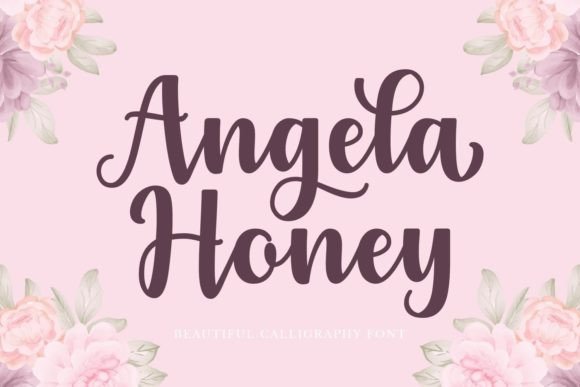
The Sweet Taste of Design Perfection
Have you ever been in the midst of a creative project, struggling to find the perfect font to bring your vision to life? I know I have. It’s that moment when everything seems to be in place, but something is missing – a subtle yet crucial detail that can make all the difference. This is where the magic happens, and I’m thrilled to introduce you to the perfect solution: the Angela Honey Font.
This beautiful, smooth, and slightly playful calligraphy font is designed to elevate your designs and leave a lasting impression. With its PUA encoding, accessing all the glyphs and swashes is a breeze, allowing you to unleash your creativity without any limitations. Whether you’re a seasoned designer or just starting out, the Angela Honey Font is a valuable addition to your toolkit, sure to bring a touch of sophistication and whimsy to your projects.
Key Features of Angela Honey Font
- Font Family: Angela Honey is a script font family designed to resemble handwritten text.
- Unique Characteristics: The font features a fluid, cursive design with subtle connections between letters, giving it a natural and elegant feel.
Review: Angela Honey Font
First impressions count, and the Angela Honey font has made a sweet impression on me. The font’s friendly and approachable nature makes it perfect for casual designs, like greeting cards, invitations, and social media posts. ✨ I appreciate the cursive script style, which gives the font a playful, handwritten feel.
While the Angela Honey font has its strengths, there are a few limitations I’d like to point out. ⚠️ The font’s design might be too playful for formal or professional designs, where a more serious tone is required. Additionally, the font’s cursive script style can be prone to letter spacing issues, which may require some tweaking to get right.
Overall, I’d give the Angela Honey font 4 out of 5 stars. It’s a solid choice for casual designs, but may not be the best fit for more formal or professional projects. With some careful use, though, this font can add a touch of warmth and personality to your designs.